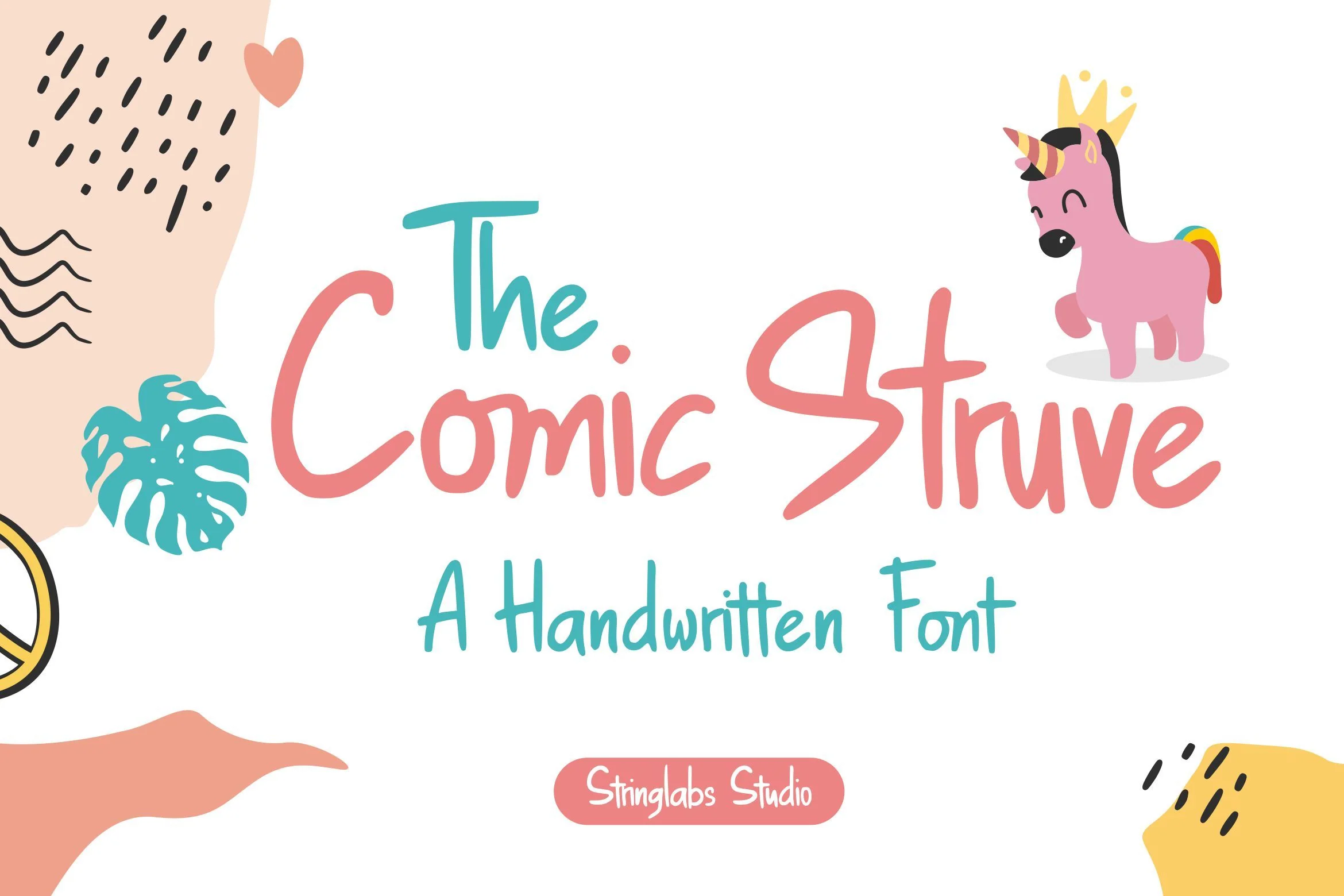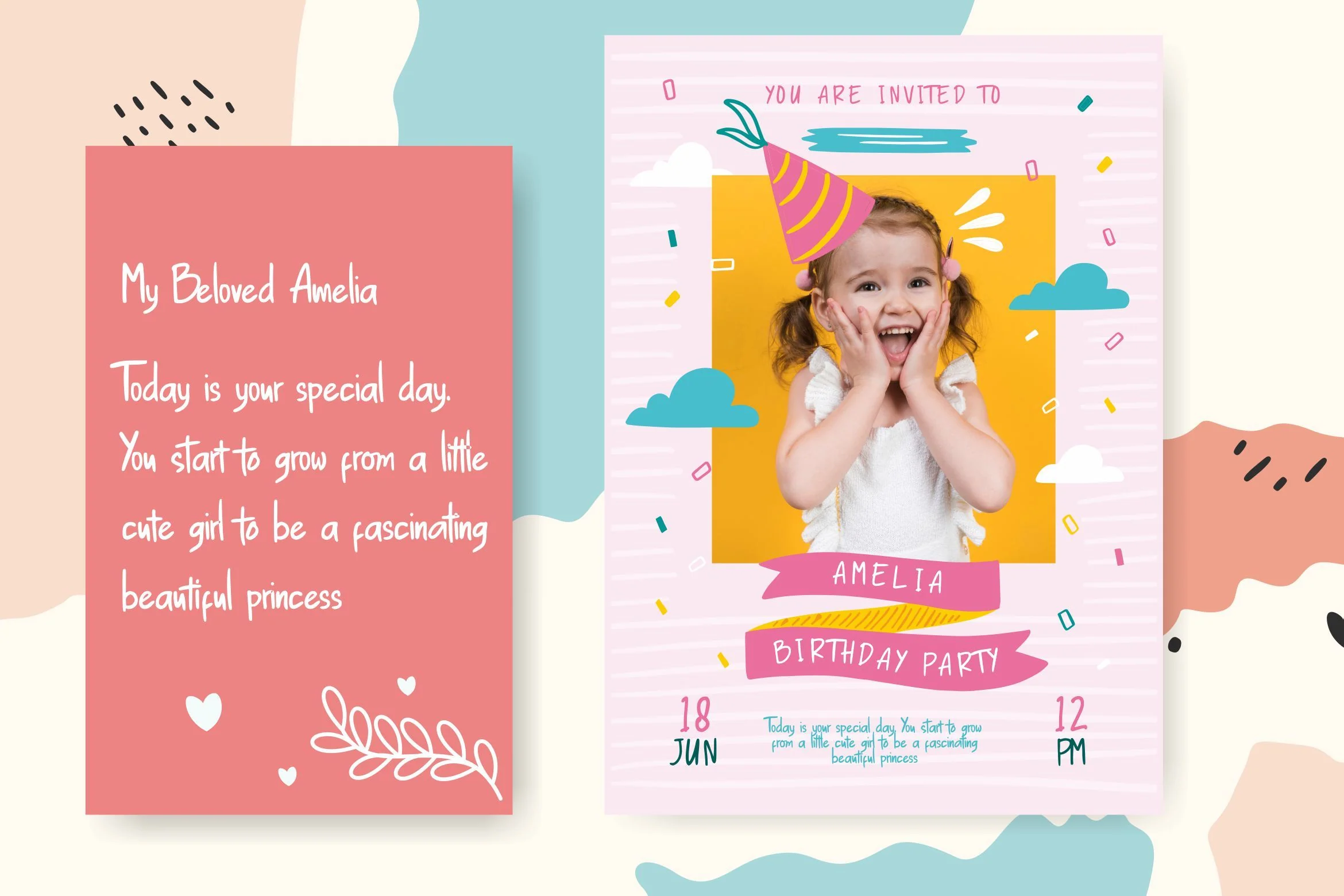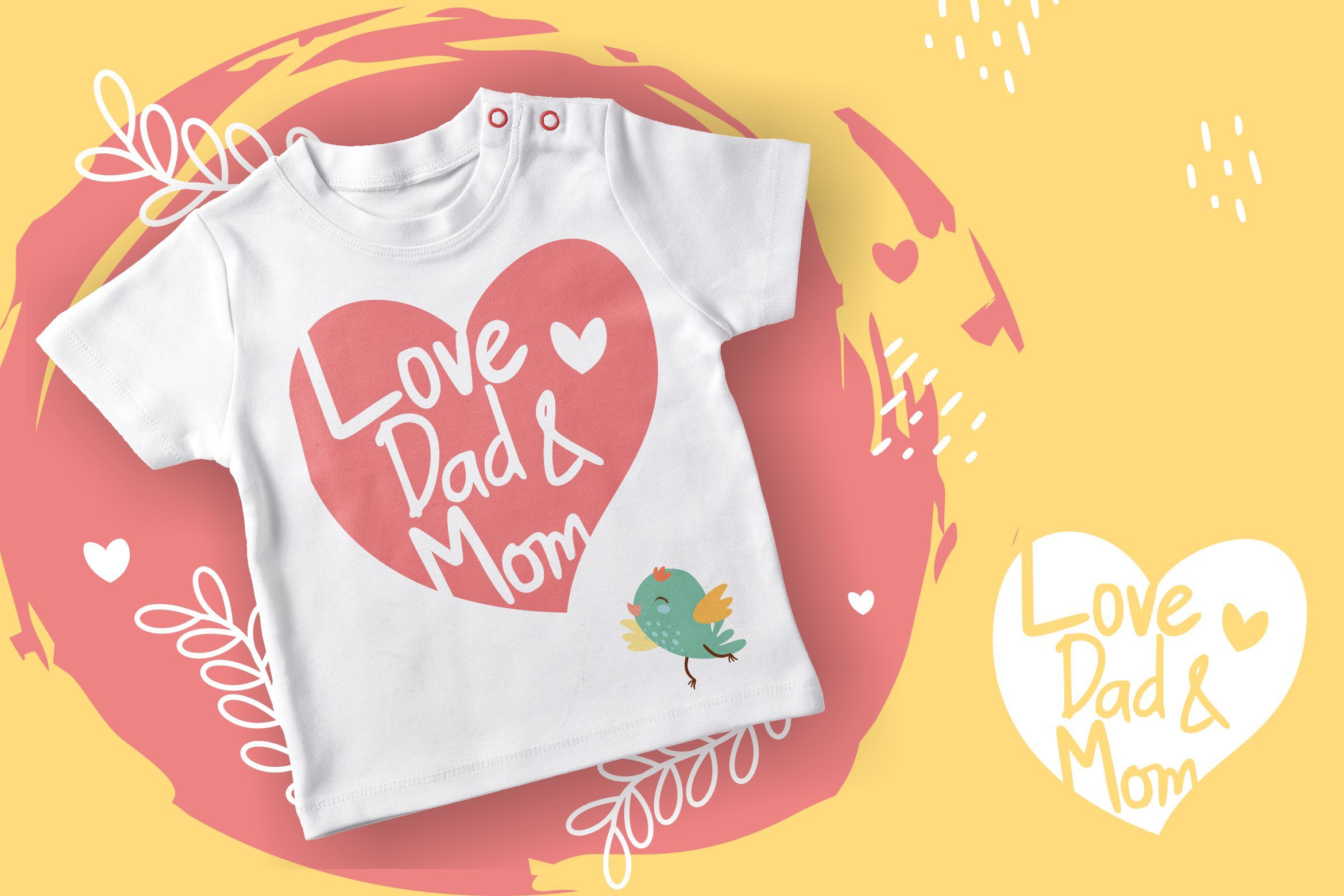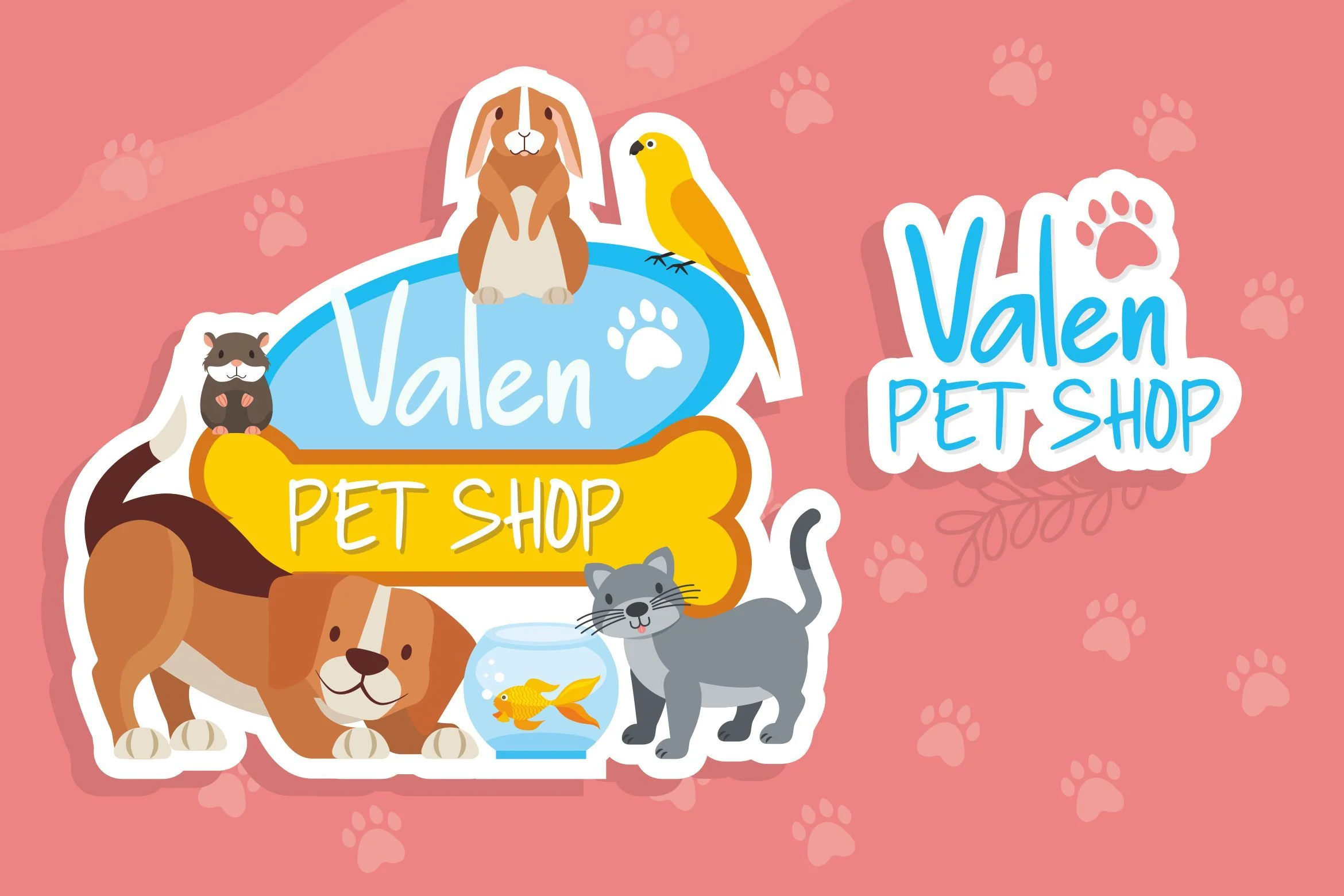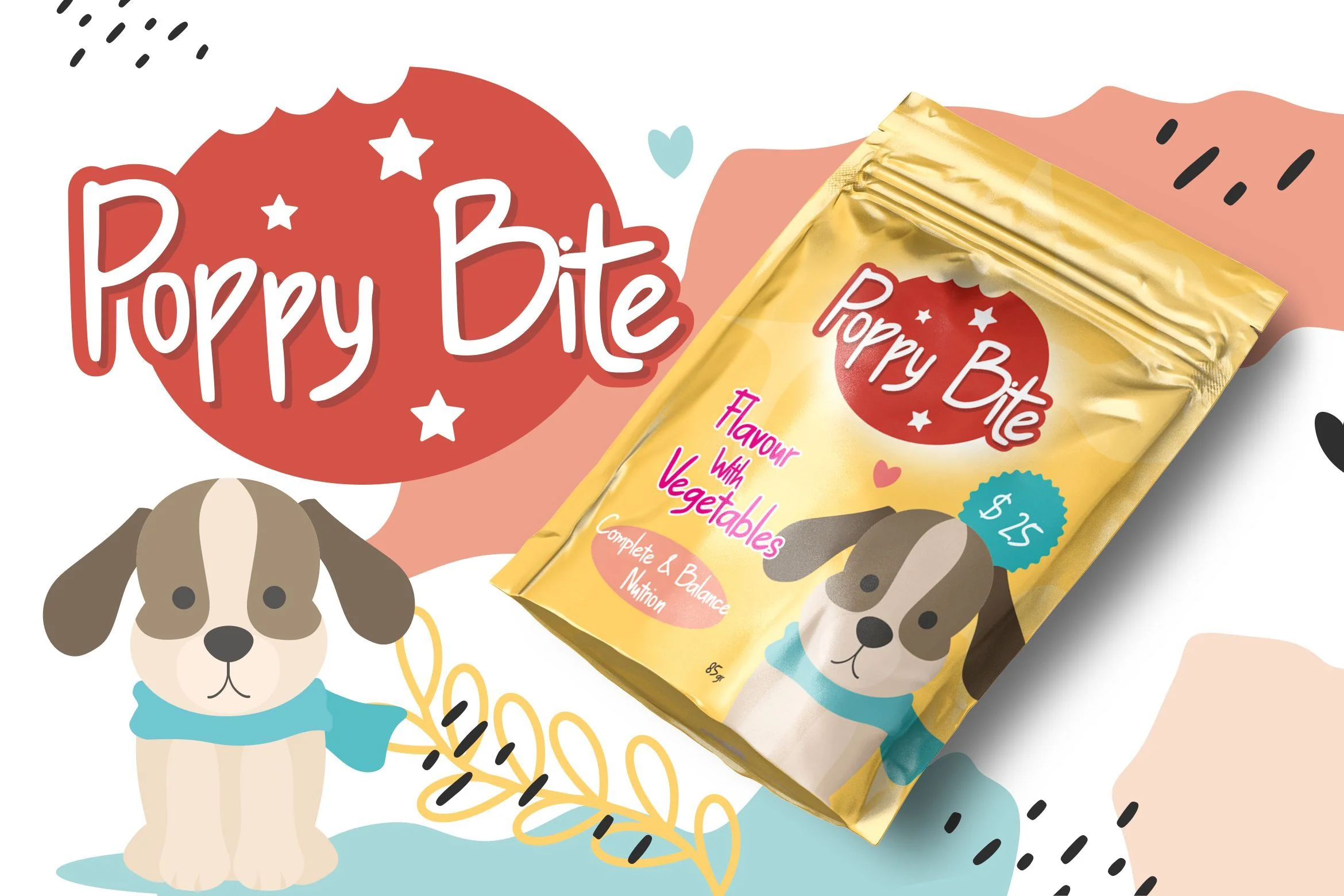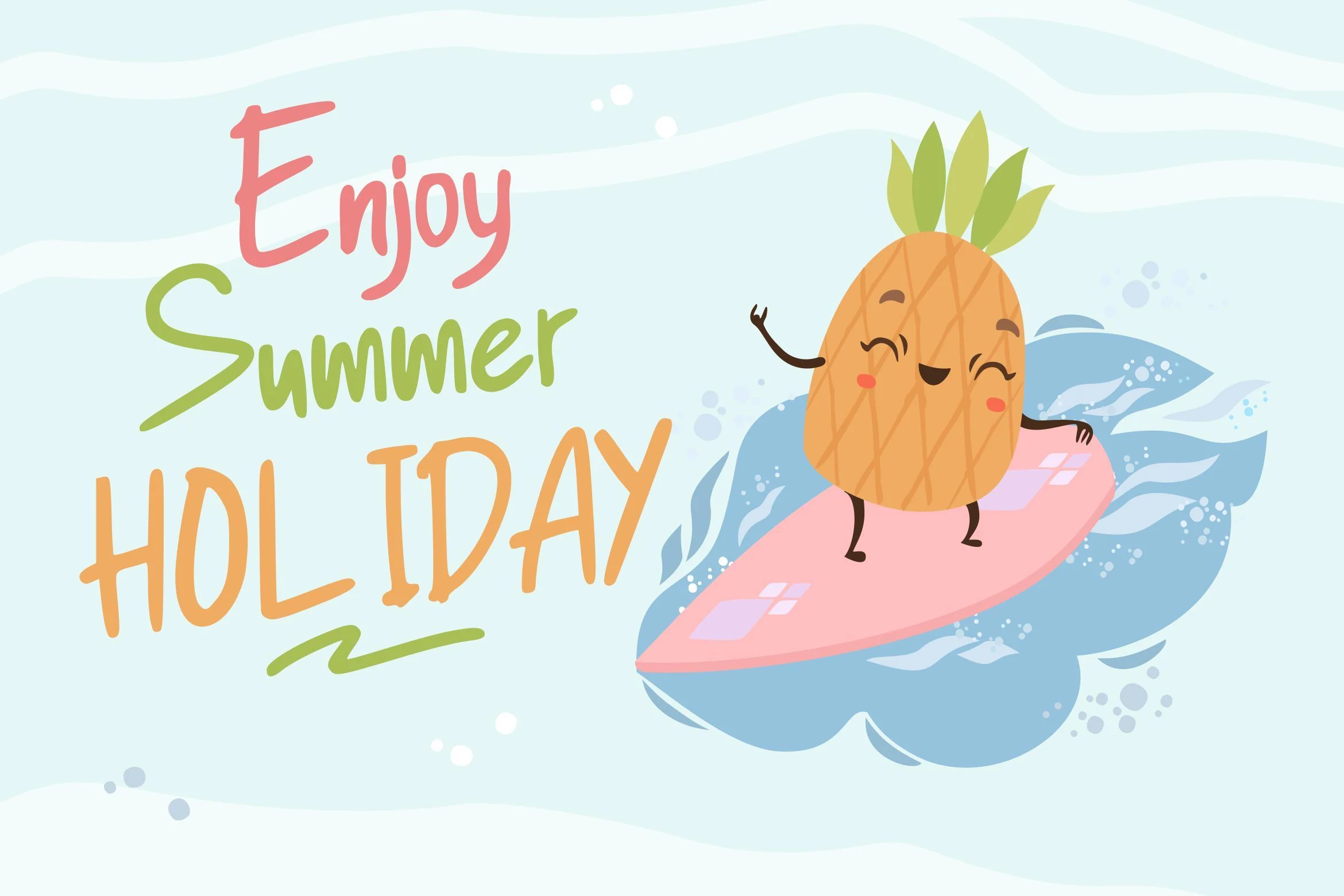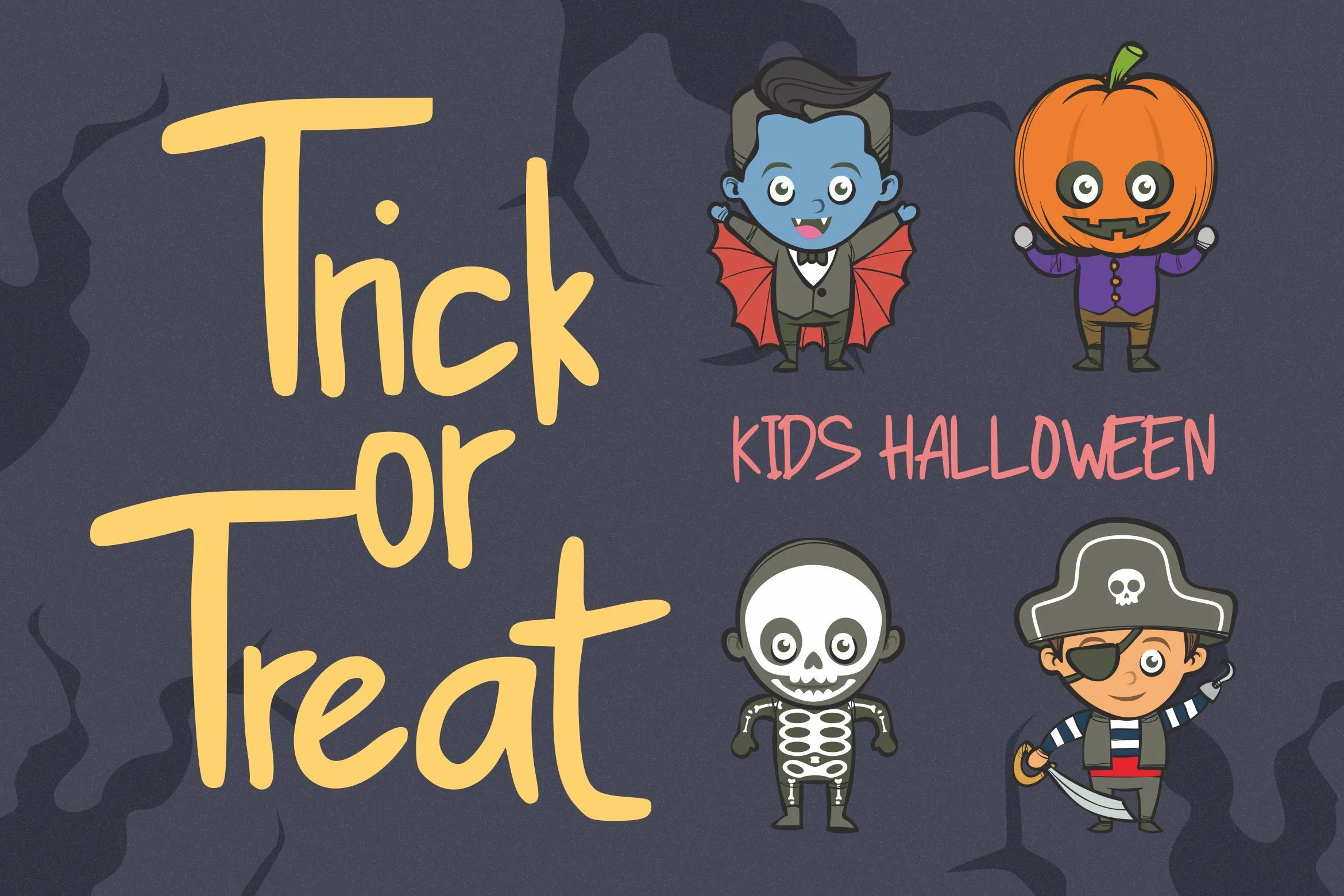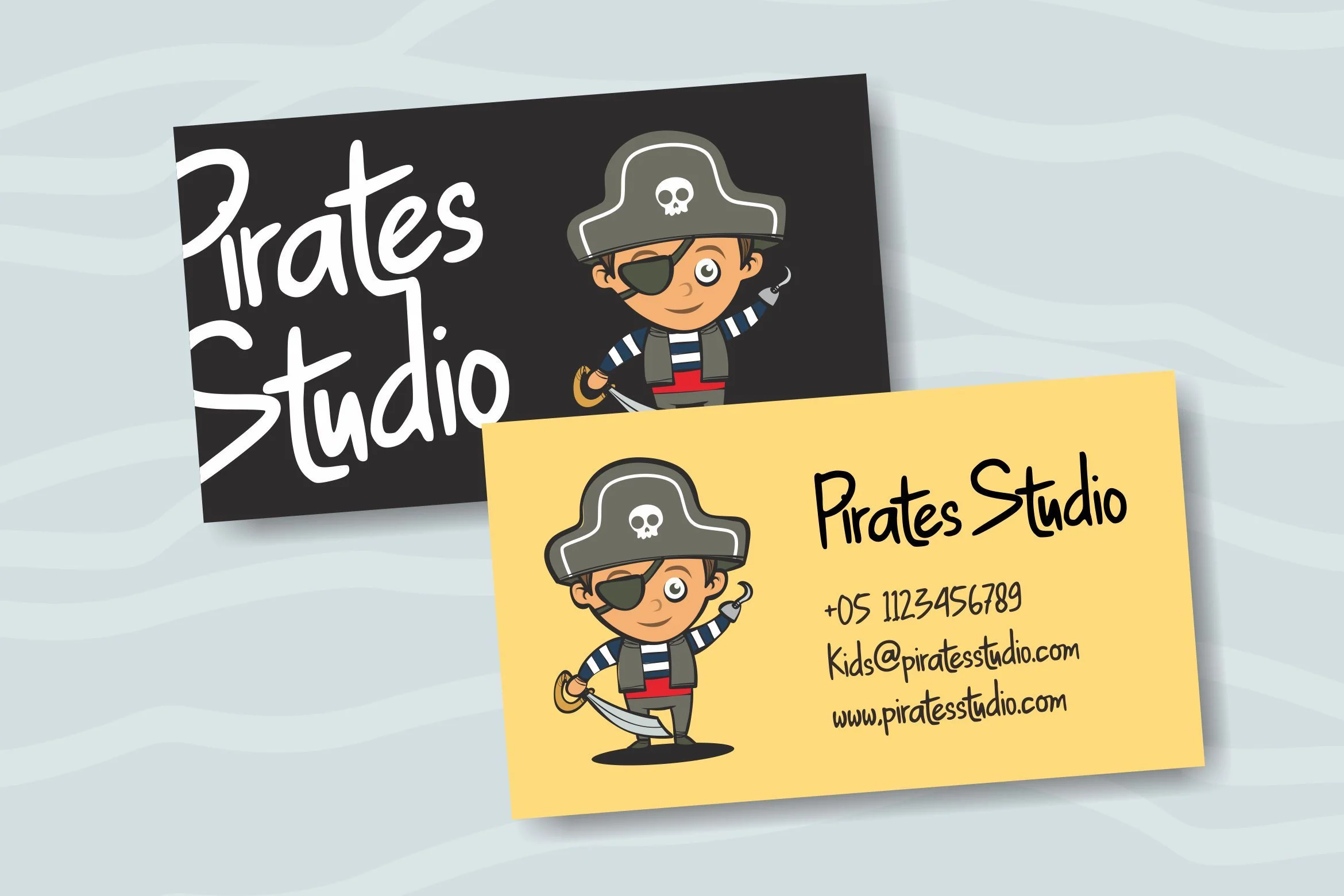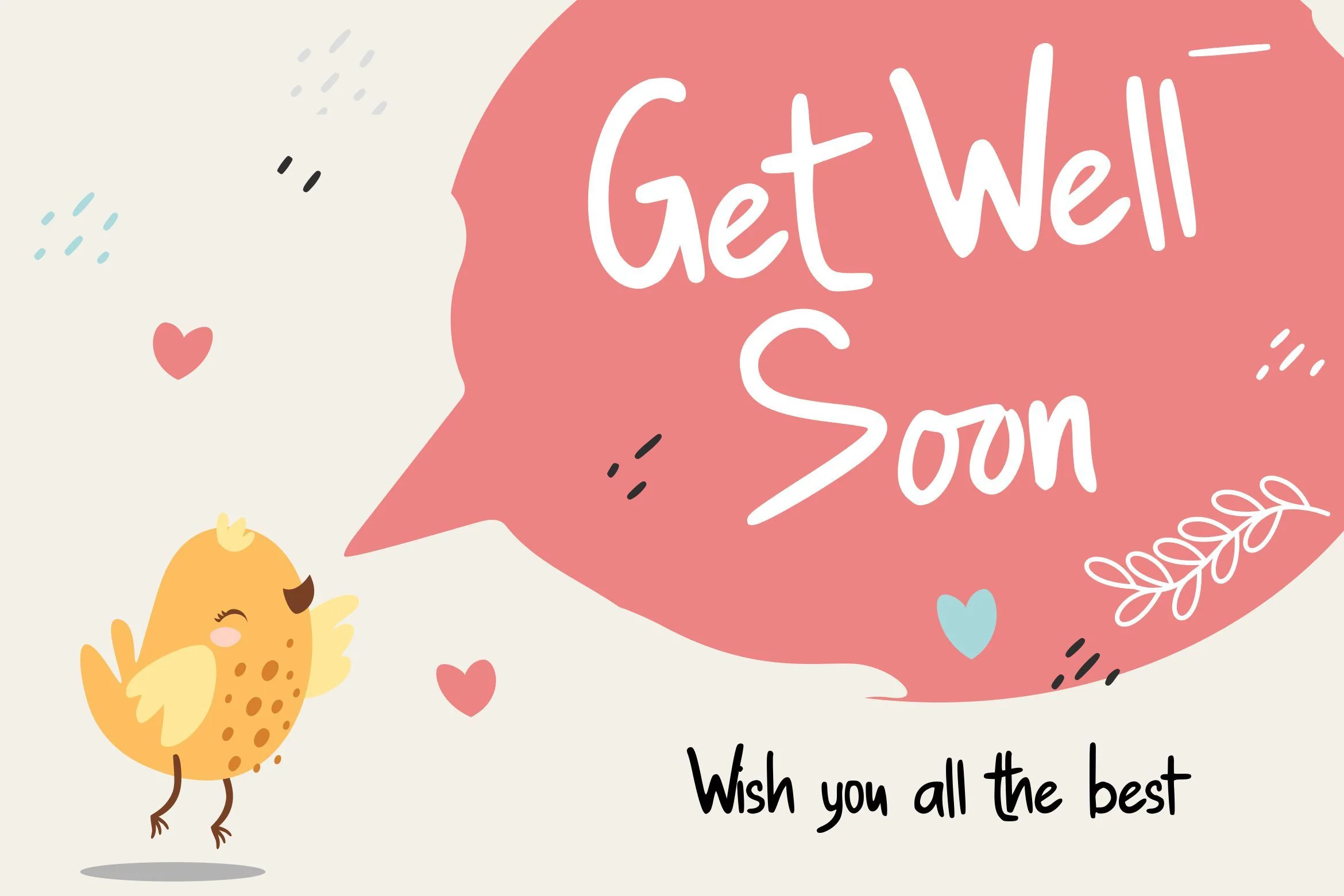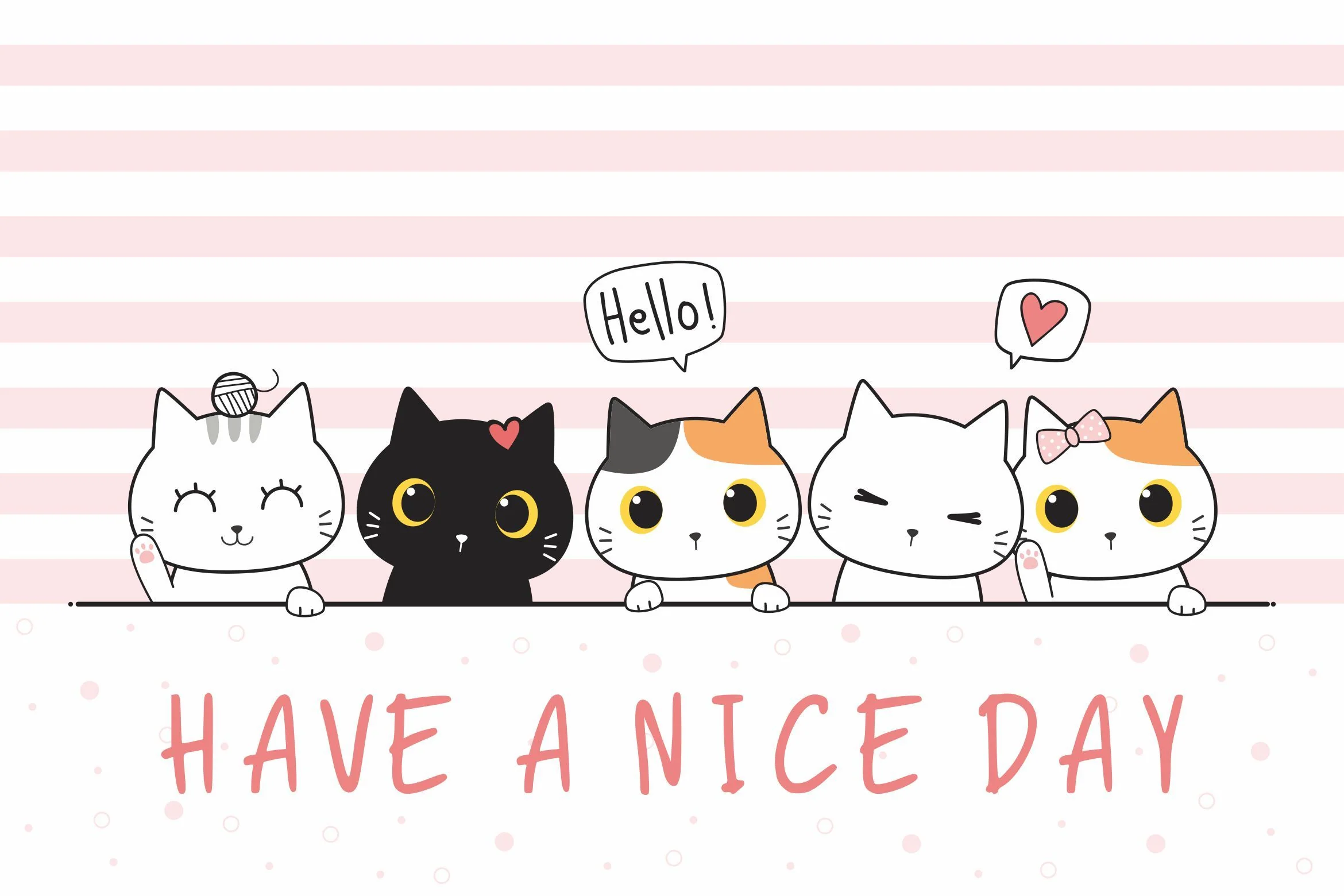
The Comic Struve - Playful Kids Font
Introducing The Comic Struve - Playful Kids Font
The Comic Struve is a playful kids font with cartoon style. This font is specially crafted for children, Kids, Boys, Kindergarten, Birthday, and Comic purposes.
The Comic Struve font has a unique glyph and fun style.
- Ligature
- Swash
Introducing The Comic Struve - Playful Kids Font
The Comic Struve is a playful kids font with cartoon style. This font is specially crafted for children, Kids, Boys, Kindergarten, Birthday, and Comic purposes.
The Comic Struve font has a unique glyph and fun style.
- Ligature
- Swash